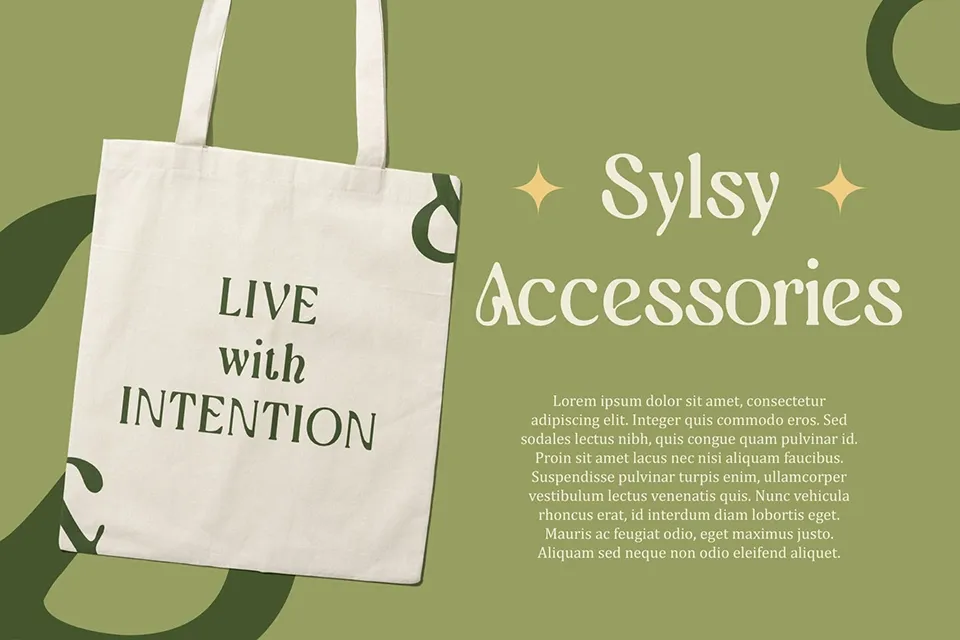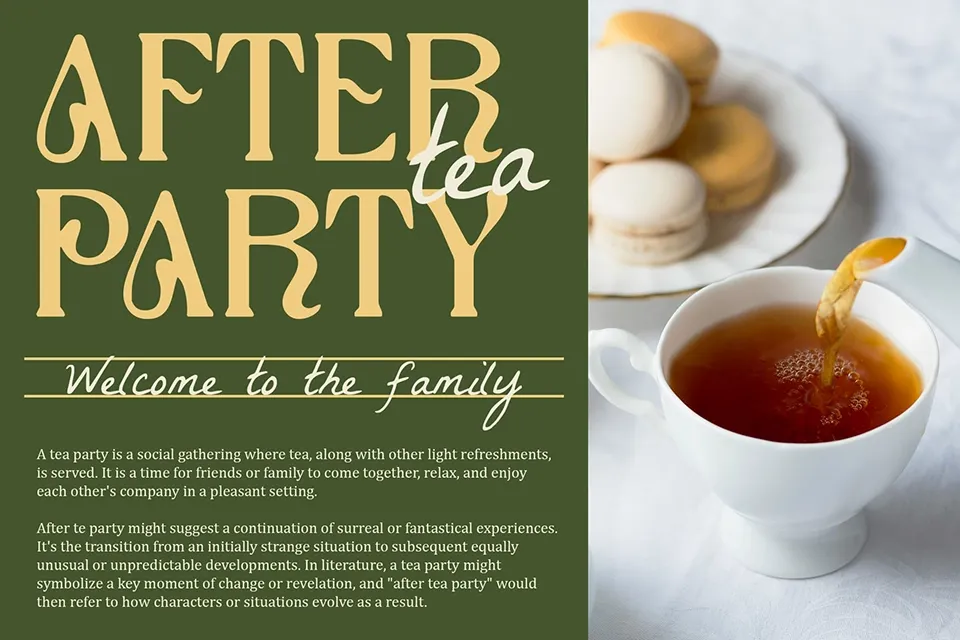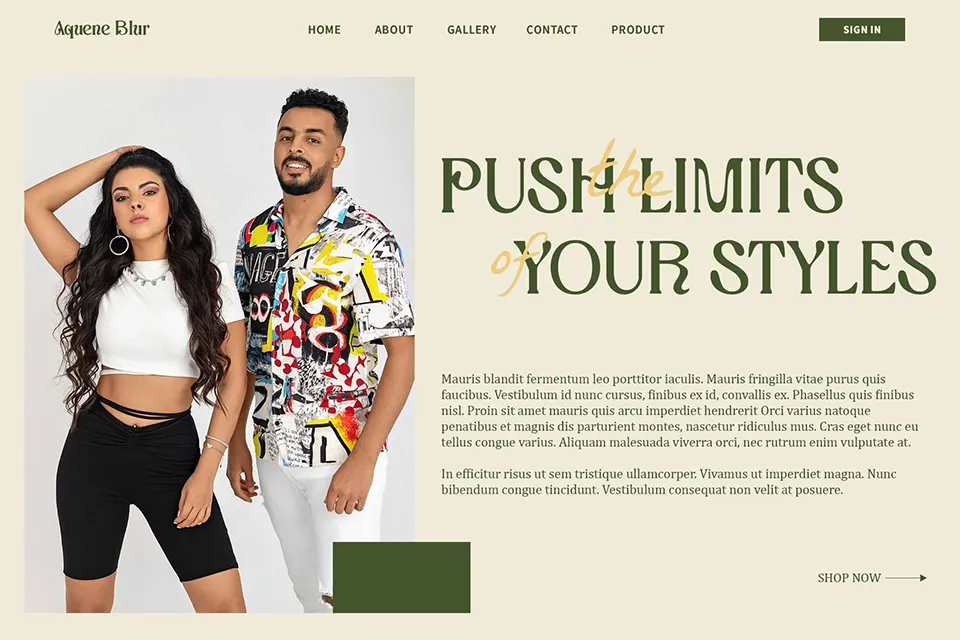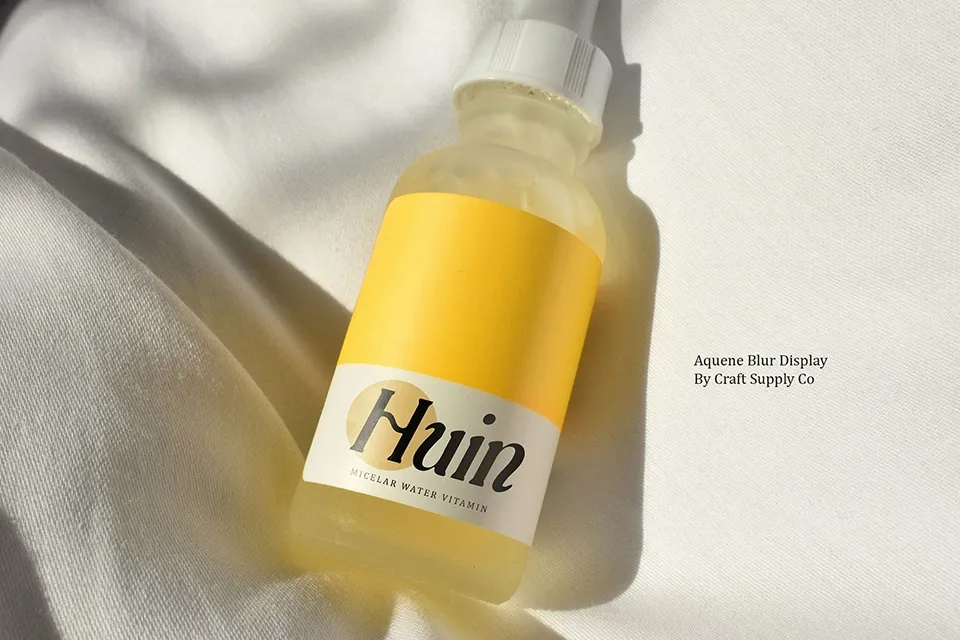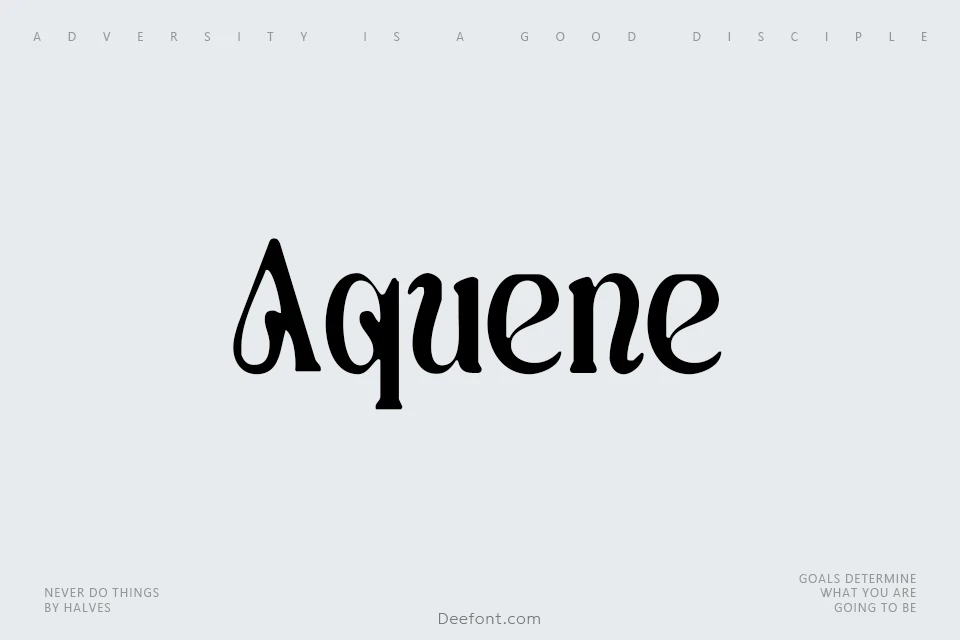
Aquene Blur Font
Aquene Blur Font is a unique display serif typeface that combines classic elegance with a modern twist. Featuring soft, blurred edges and artistic curves, Aquene Blur stands out as a versatile choice for creative projects. Its distinctive design adds a sense of whimsy and sophistication, making it ideal for branding, packaging, posters, and editorial layouts. The font’s playful yet refined aesthetic ensures your designs capture attention while maintaining a professional look. Perfect for adding personality and charm, Aquene Blur is a great choice for designers seeking a bold and stylish typeface to elevate their work. Let Aquene Blur inspire your creativity!